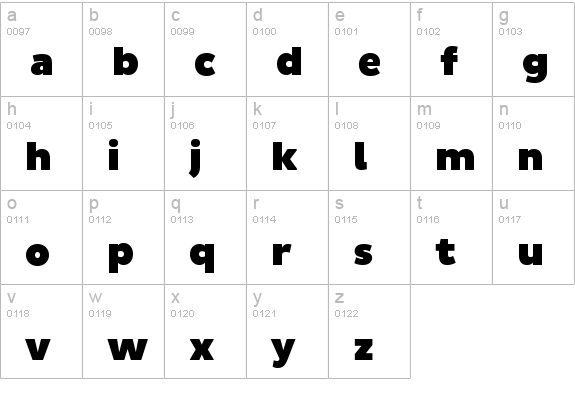
Pluto Sans Black is a maximum-weight, dramatic variant in the Pluto typeface family \xE2\x80\x94 well suited to maximum-impact headlines, posters, and packaging.
Pluto Sans Black font is a modern and sleek typeface designed to make a bold statement in any design project. With its strong and distinctive characters, this font is perfect for headlines, posters, and branding materials that require a touch of sophistication and elegance. The clean lines and sharp angles of Pluto Sans Black exude a sense of confidence and strength, making it an excellent choice for projects that demand attention. What's even better is that Pluto Sans Black font is available for free download at FontsMarket.com. This means you can easily access this high-quality typeface without any cost, making it a valuable addition to your font collection. Whether you're a designer looking to add a new font to your toolkit or a business owner seeking a fresh look for your brand, Pluto Sans Black is a versatile and powerful font that is sure to elevate your designs. Download it today and see the impact it can make on your next project.